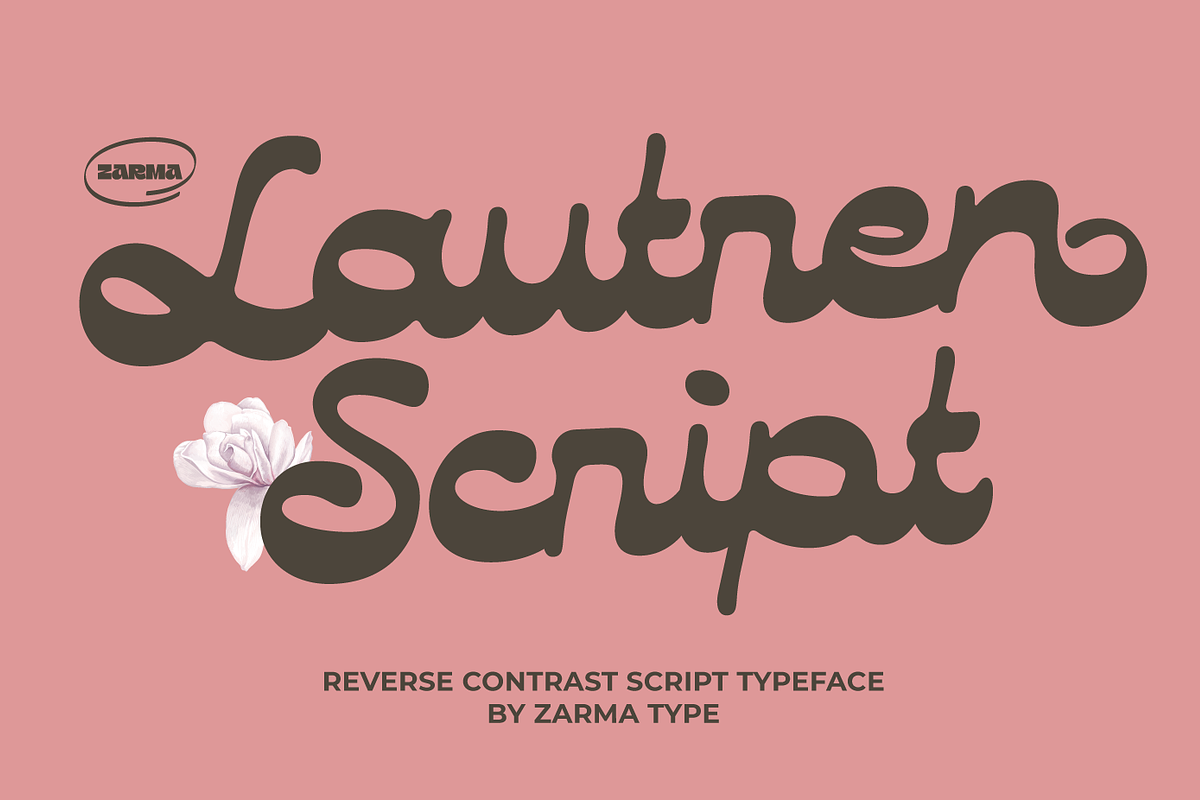
Lautren - Reverse Contrast Script Free Download
Lautren - Reverse Contrast Script Free Download is a modern and unique script typeface that combines bold, expressive strokes with reverse contrast design. Perfect for branding, logos, posters, and creative projects, Lautren stands out with its distinctive, artistic flair. Its elegant curves and contrasting letterforms add an eye-catching, dynamic touch to your designs, making it ideal for projects that require a blend of sophistication and creativity.